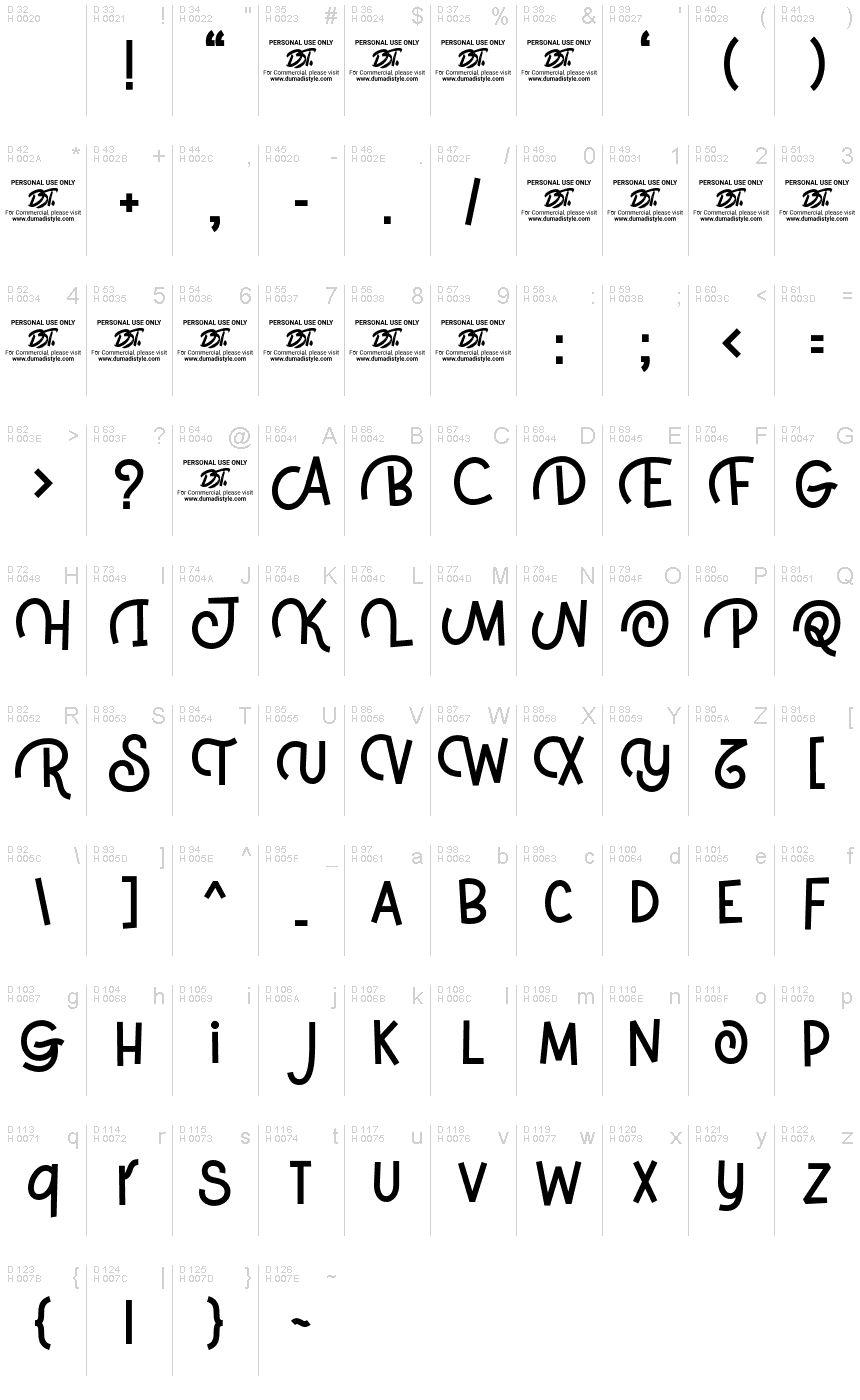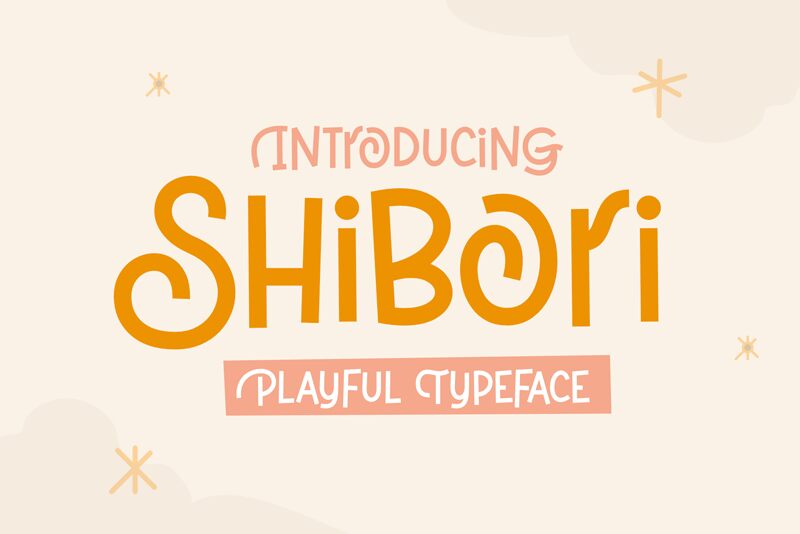
Shibori
Shibori, the latest creation from the talented designer DumadiStyle, is a display font that's sure to make your projects pop. With its playful and comic style, Shibori is suitable for a wide range of creative endeavors – from children's books and posters to social media graphics and branding materials. The semi-light weight of this font adds to its overall charm, making it an excellent choice for adding character and personality to your designs. Whether you're looking to create something whimsical or quirky, Shibori is the perfect semi-light font typeface that will bring your ideas to life.